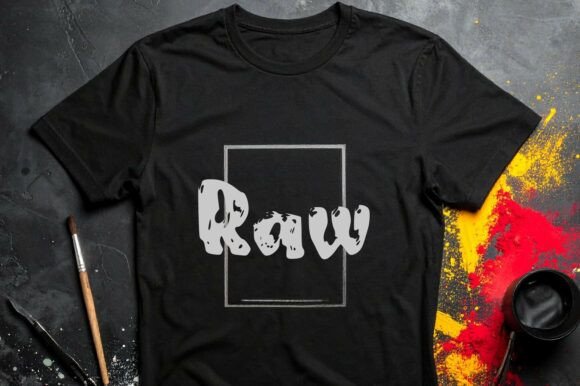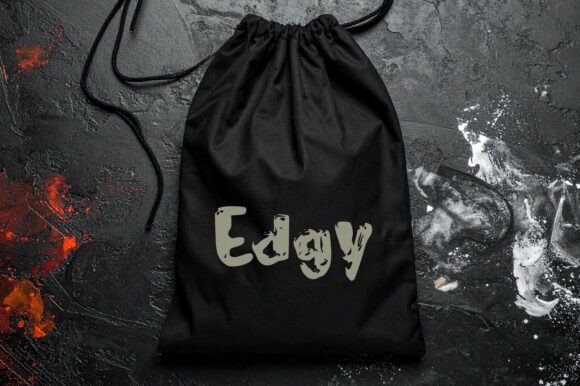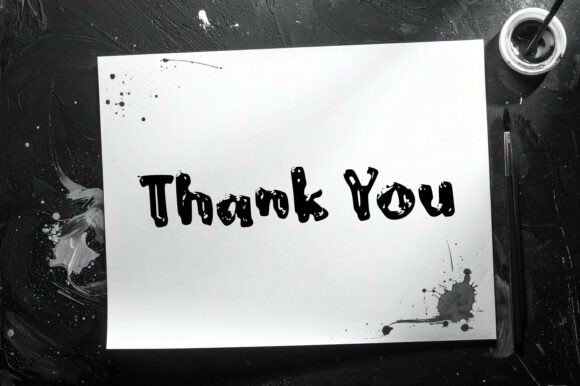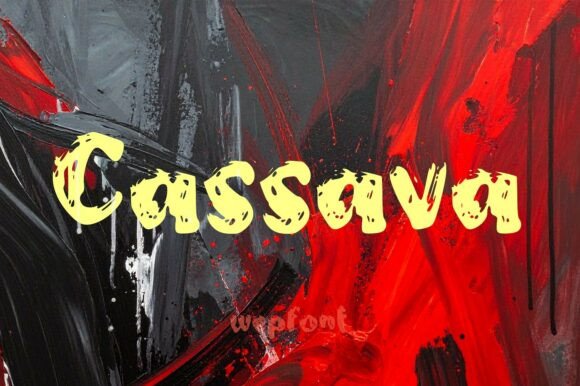
Meet Cassava: The Unbridled Spirit of Urban Art in Font Form
In the realm of typography, few fonts capture the essence of urban art and uncontained creativity as vividly as Cassava. This brazenly graphic brush grunge font is a powerhouse of energy, designed to infuse your designs with the raw, emphatic force of wild graffiti and raw brushstrokes. Cassava is not just a font; it’s a statement—a declaration of boldness, a testament to the unfiltered feeling of grunge artistry that refuses to be ignored.
The Aesthetic of Rebellion
Cassava’s design is characterized by textured bold lines and strategically roughened edges, giving it a rugged charm that’s as authentic as it is captivating. This font is the epitome of edginess, making it the perfect companion for rock bands, street-style brands, edgy artistry, and extreme sports logos. Its audaciousness and energy amplify any message, turning it into a visual punch that demands attention.
Empowering Your Message
Cassava doesn’t just underline your statement; it empowers it with a vigor that’s as rough as it is potent. This font is designed to make a statement, to leave an indelible mark on your audience. Whether you’re crafting a striking visual identity or kicking off a bold branding campaign, Cassava provides the typographic punch needed to stand out in a crowded creative landscape.
Versatility and Compatibility
One of Cassava’s most significant advantages is its robustness and versatility. It harmonizes perfectly with most graphic design software, making it an accessible tool for creators, artists, and musicians worldwide. This compatibility ensures that Cassava can be seamlessly integrated into various projects, from digital art and music albums to merchandise and advertising campaigns.
The Secret Weapon for Creators
For every rock band looking to brand their music with an unmistakable edge, every street-style brand aiming to capture the pulse of urban fashion, and every artist or musician seeking to inject their work with a unique and pulsating character, Cassava is the secret weapon. It’s more than just a font; it’s a creative partner that understands the need for boldness and authenticity in art and design.
Bringing Grunge Artistry to Your Projects
Grunge artistry, with its raw aesthetic and rebellious spirit, has influenced countless design projects over the years. Cassava brings this aesthetic directly to your fingertips, allowing you to incorporate the unbridled energy of urban art into your work. From logos and posters to album covers and apparel, Cassava’s grunge-inspired texture and bold strokes add a layer of depth and emotion that resonates with audiences.
Why Choose Cassava?
- Unique Character: Cassava offers a distinctive look that sets it apart from more conventional fonts.
- Versatility: Compatible with most graphic design software, making it suitable for a wide range of projects.
- Expressive: Perfect for creators looking to convey emotion and energy through their typography.
- Impactful: Demands attention and leaves a lasting impression on viewers.
Cassava is more than just a font; it’s a movement—a call to embrace the unfiltered, raw energy of urban art and grunge aesthetics in your design work. With its textured lines, bold strokes, and rugged charm, Cassava is poised to become the go-to font for creators and brands looking to make a bold statement. Whether you’re an artist, musician, or designer, Cassava offers the tools to elevate your work, inject it with personality, and make it unforgettable. Embrace the spirit of urban art and uncontained creativity with Cassava—the font that dares to make a statement.